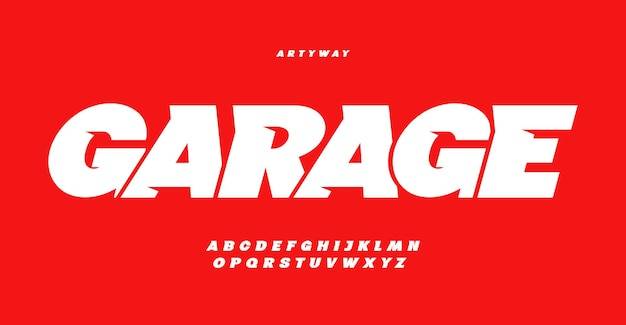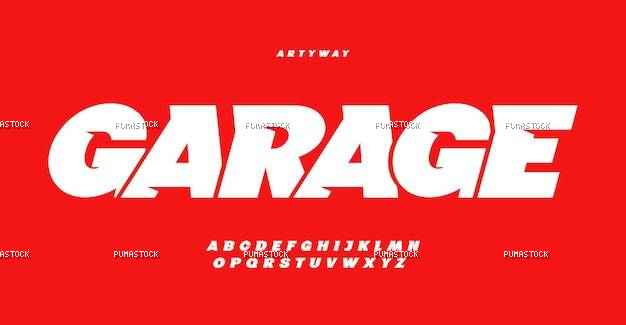
garage service font bold italic letters dynamic alphabet for car racing logo and headline automotive typography sport game design vector typographic design